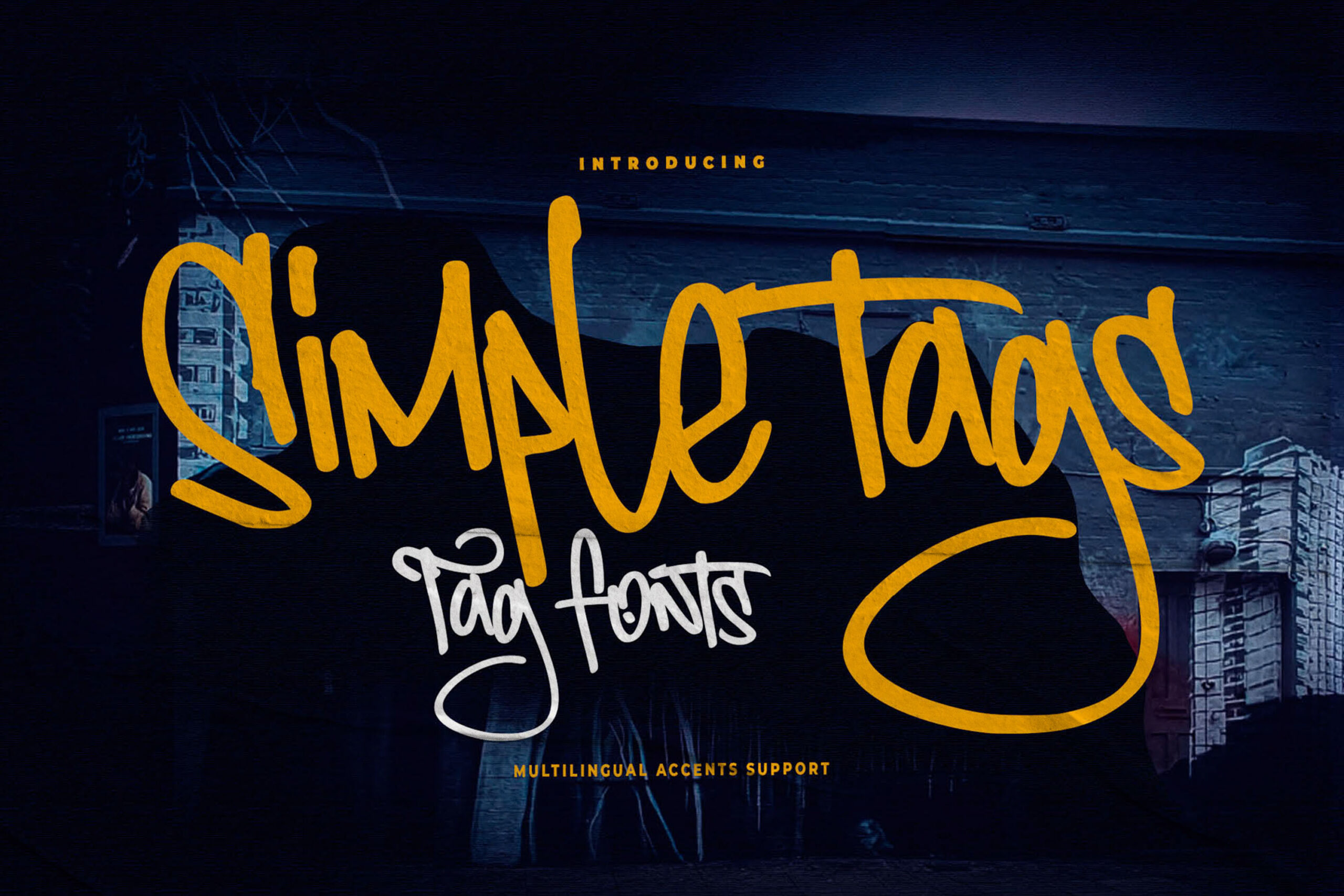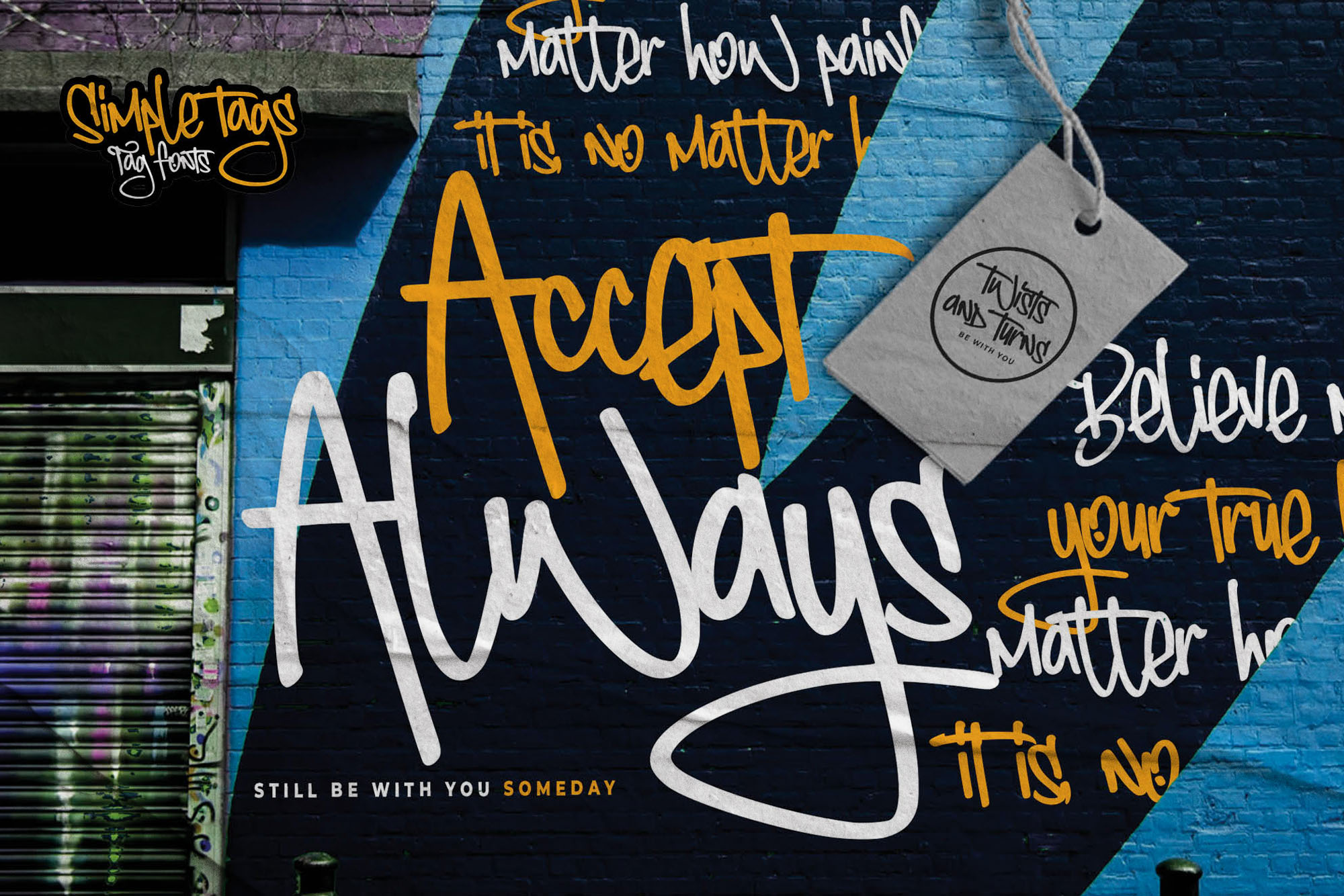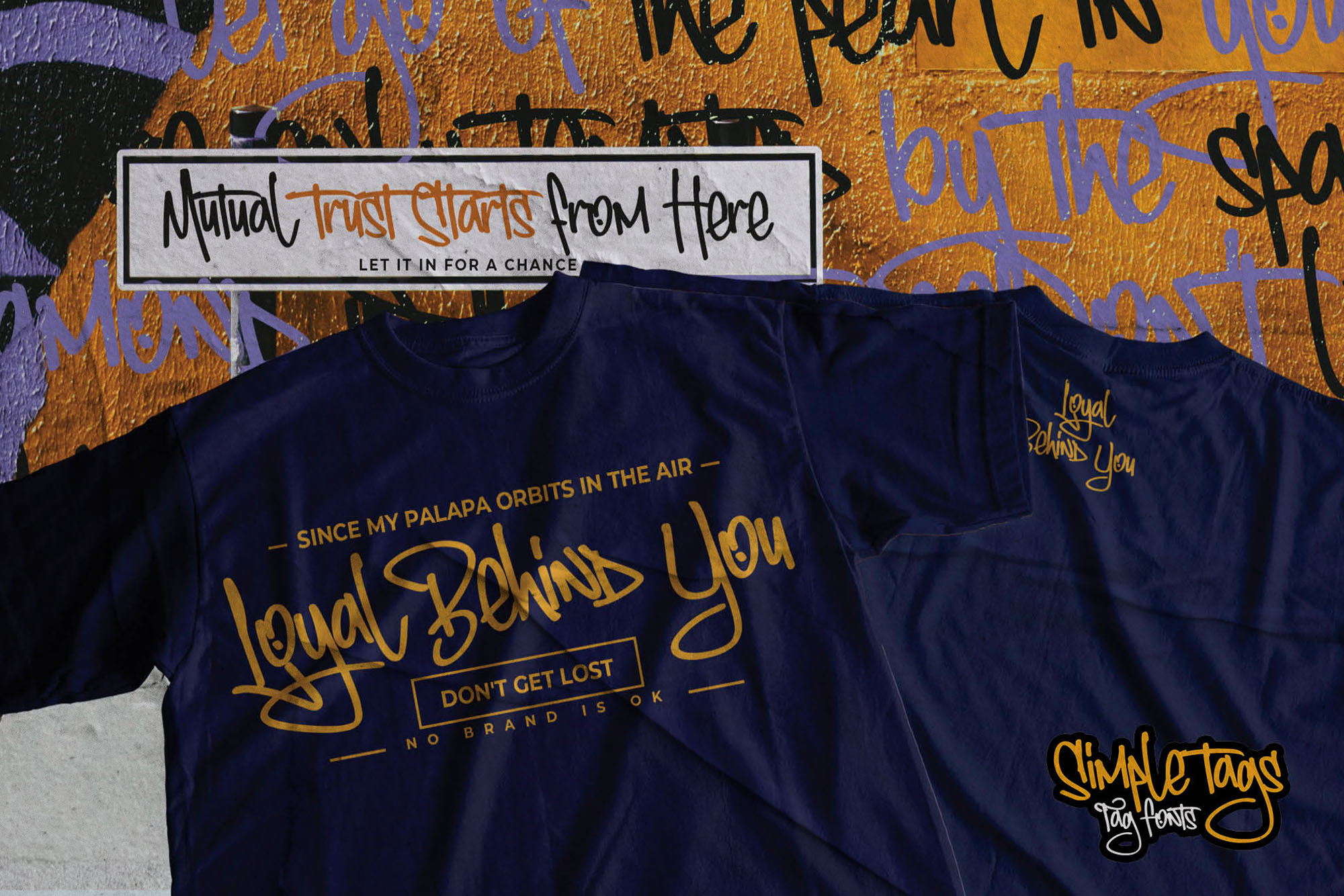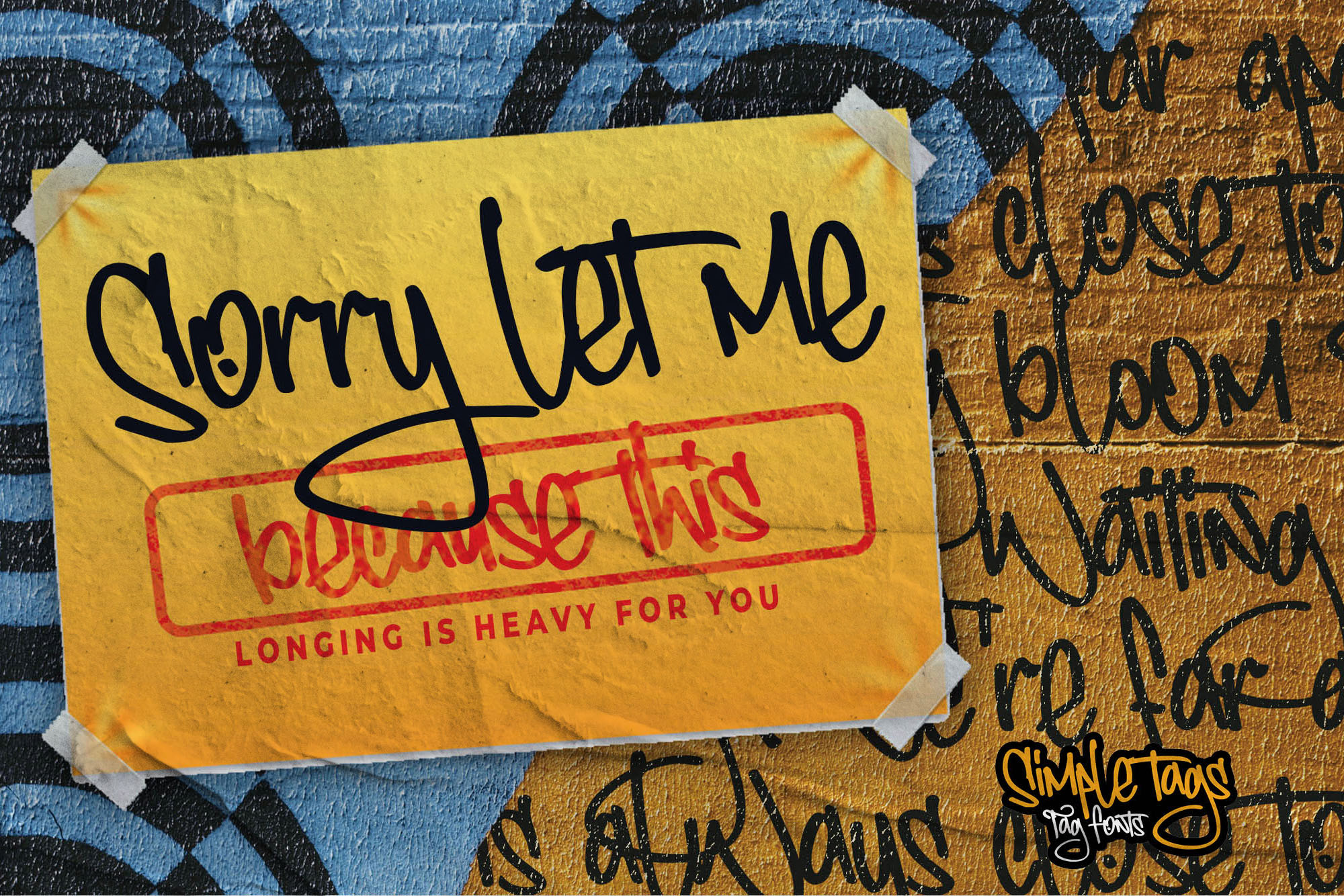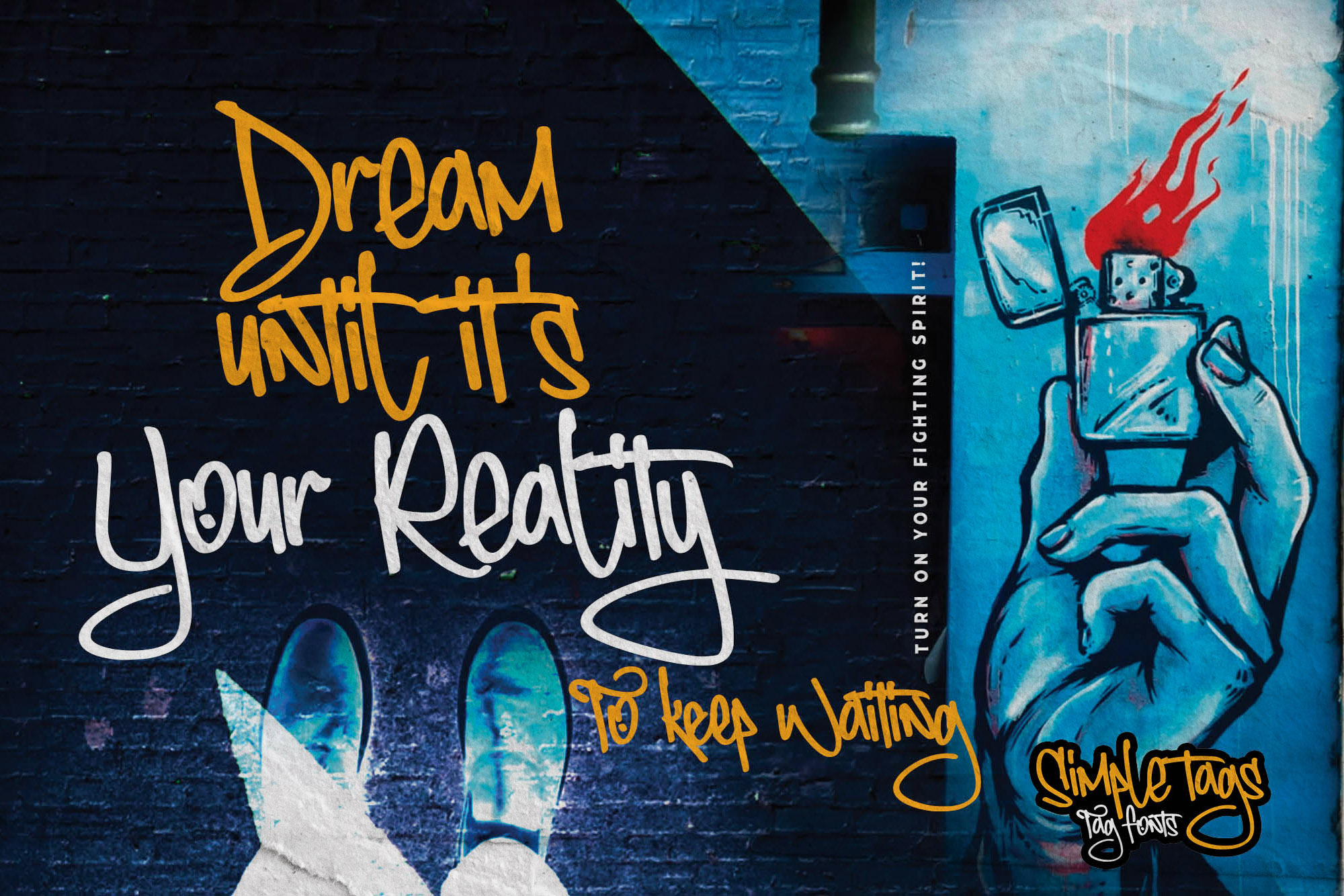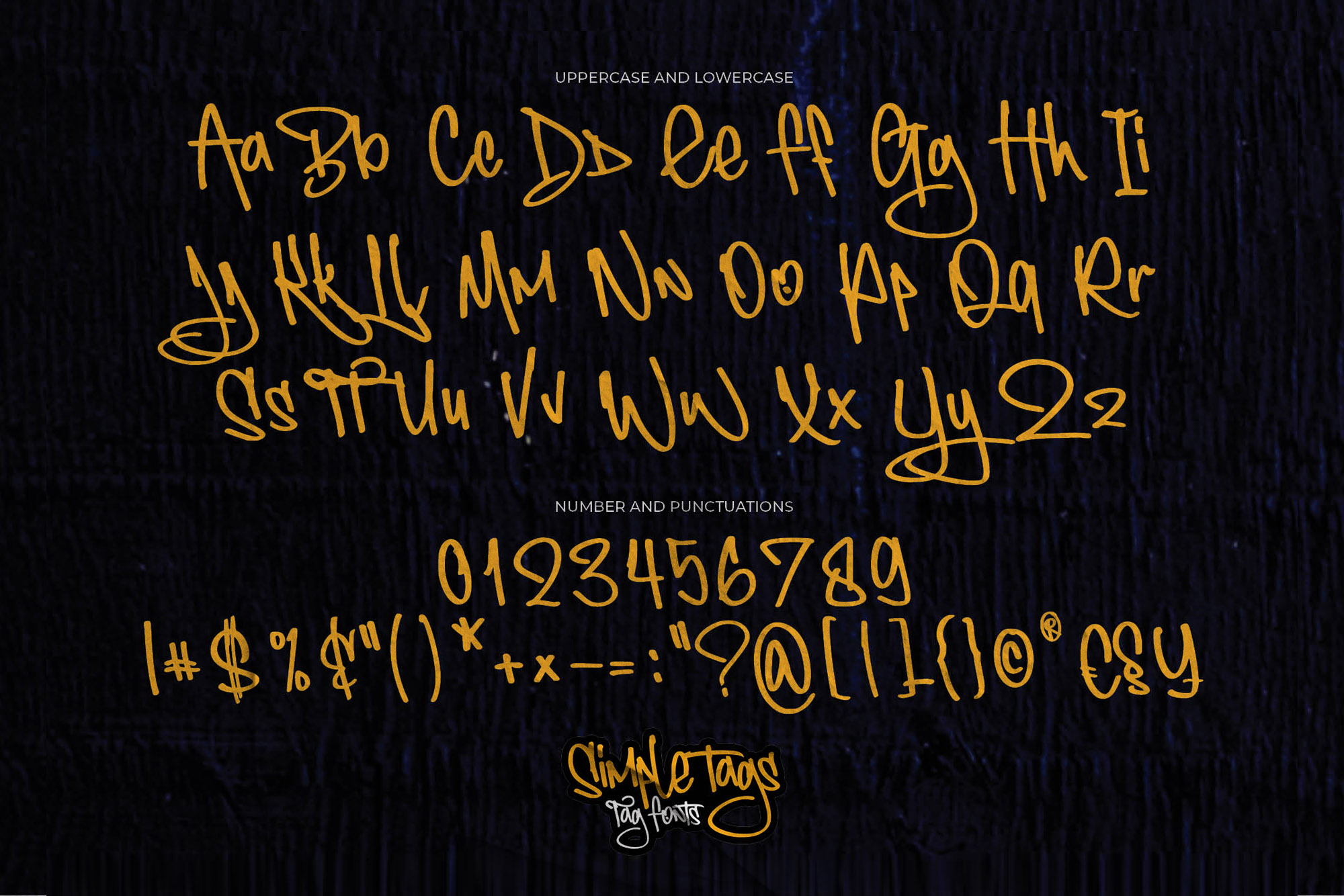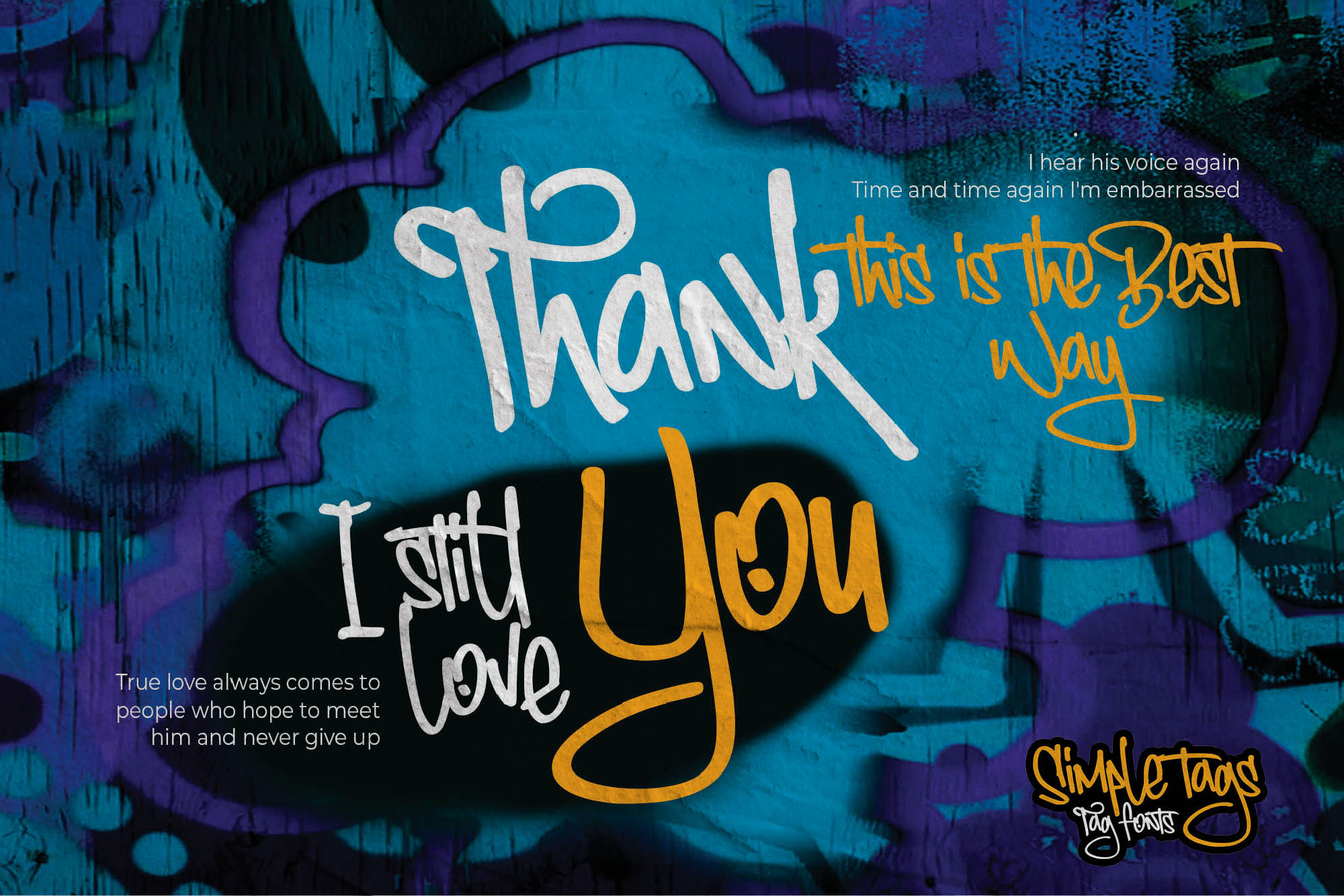
Simple Tags -Tag Font, modern style and dramatic movement that is written casually and quickly.
The best for labels, poster, project designs look modern, authentic and fun. It’s perfect for labels, quotes, posters, DIY projects, branding, packaging, greeting cards, websites, photography overlays, signs, scrapbooking, tags and so much more! That is why Simple Tags has a textured, and unique characteristic more natural look. You can activate Alternates and Ligatures glyphs OpenType panel.